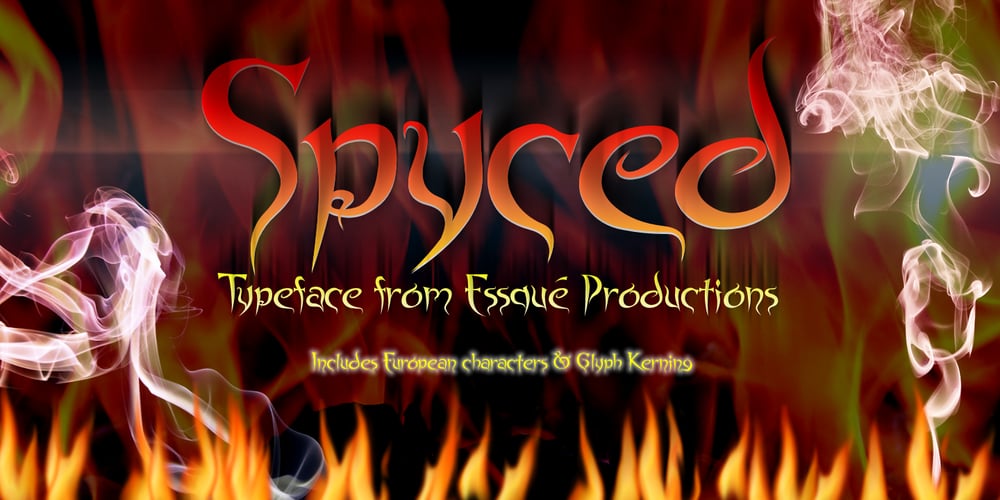
Spyced
Spyced font
Spyced Font Family was designed by Stephen M Knouse and published by Essqué Productions. Spyced contains 1 styles and family package options. This stylized font was inspired by the personal style of the designer’s sister. It has a mixture of Gothic, Arabian, & Persian styles, with elements inspired by thorns and smoke. It can be ideal for projects that require an air of mystery or intrigue, or have an exotic or dangerous flare.